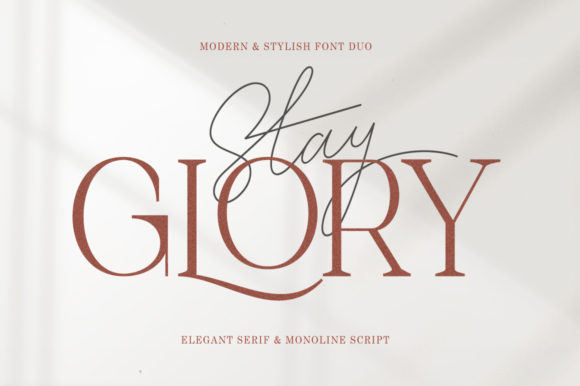
Introducing Stay Glory Font, the ultimate choice for those seeking the best font for a rustic wedding. This extraordinary duo font, created by the talented LetterFreshStudio, will captivate your heart and elevate your designs to new heights.
With its stunning combination of a serif and script font, Stay Glory offers endless possibilities for your creative projects. Whether you're designing wedding invitations, signage, logos, or even social media graphics, this font has got you covered. Its versatility knows no bounds, making it the perfect companion for any design endeavor.
But what sets Stay Glory apart from the rest? Let's dive into the enchanting features that make this font a must-have for any design enthusiast.
First and foremost, Stay Glory is meticulously crafted with attention to detail, ensuring every curve and stroke exudes elegance and charm. The script font boasts a handcrafted feel, adding a personal touch to your designs and invoking a sense of warmth and authenticity.
Furthermore, Stay Glory is PUA encoded, granting you easy access to a vast array of glyphs and swashes. This means you can effortlessly embellish your creations with decorative elements, giving them a unique and eye-catching appeal. Let your imagination run wild as you explore the endless possibilities this font offers.
Picture this - a rustic wedding invitation adorned with the graceful curves of Stay Glory. The script font delicately weaves the couple's names, adding a touch of romance and whimsy to the design. Guests will be captivated by the beauty of your creation, setting the tone for a truly unforgettable event.
But the magic of Stay Glory doesn't stop at weddings. Imagine a logo for a cozy café, where the serif font adds a touch of sophistication and the script font infuses a sense of warmth and approachability. Customers will immediately feel drawn to the inviting atmosphere you've created, making it a memorable experience from the very first glance.
In conclusion, Stay Glory Font is not just another font - it's a masterpiece waiting to be unleashed. Its versatility, attention to detail, and access to a wide range of decorative elements make it the ultimate choice for those seeking to create captivating designs.